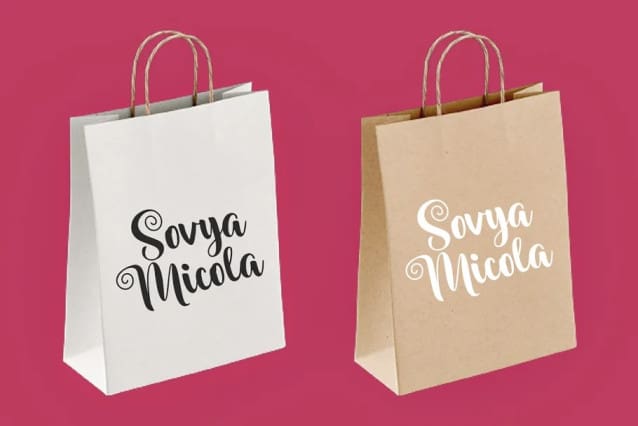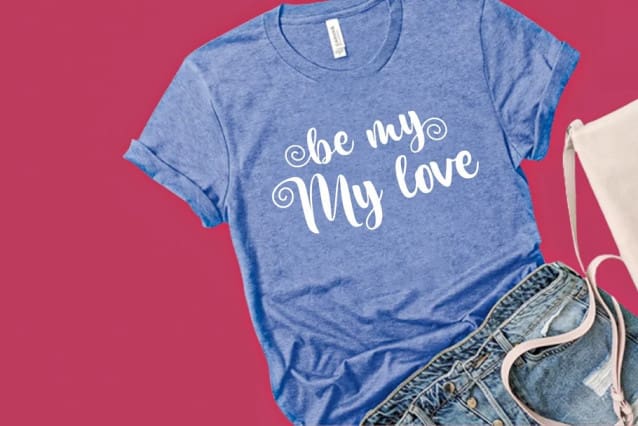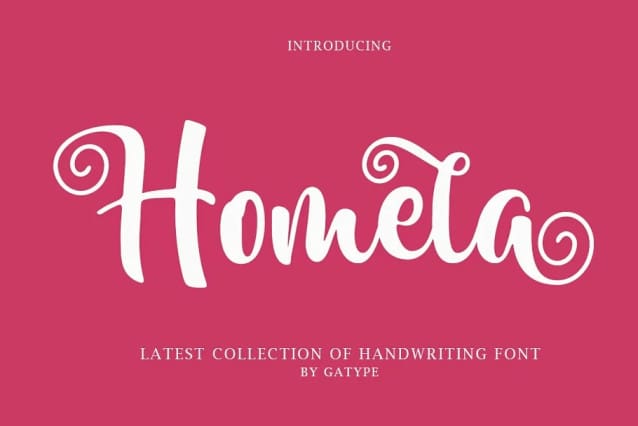
Homela Script Font
Homela Script Font is a bold script font that is simple and unique looking. This customizable font will look great on a variety of design ideas such as Christmas themes, valentines, posters, invitations, weddings, branding projects, social media posts, magazines, book covers and more! This will add a fun and friendly touch to any of your projects! This font is PUA encoded which means you can access all the glyphs and sweeps easily.